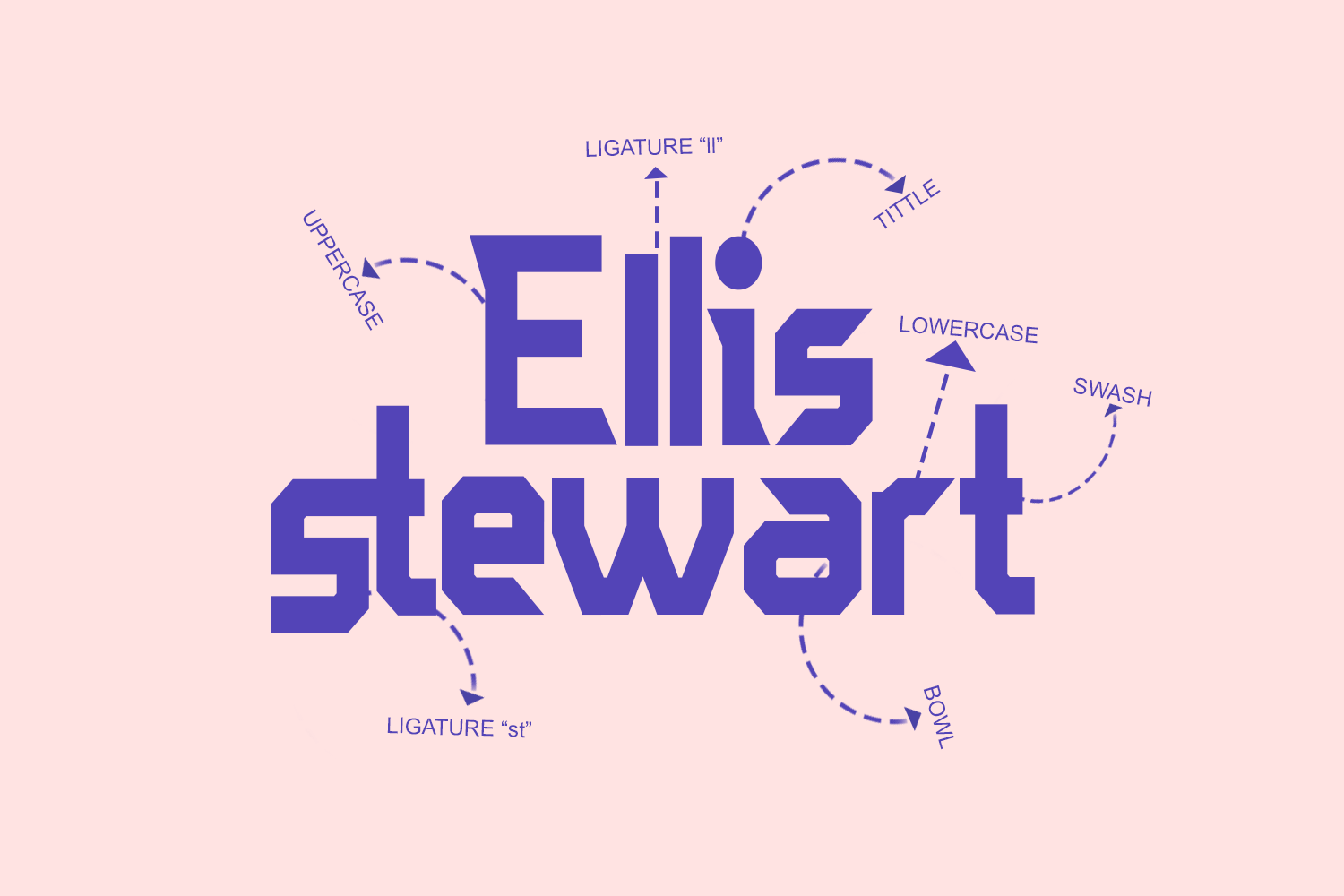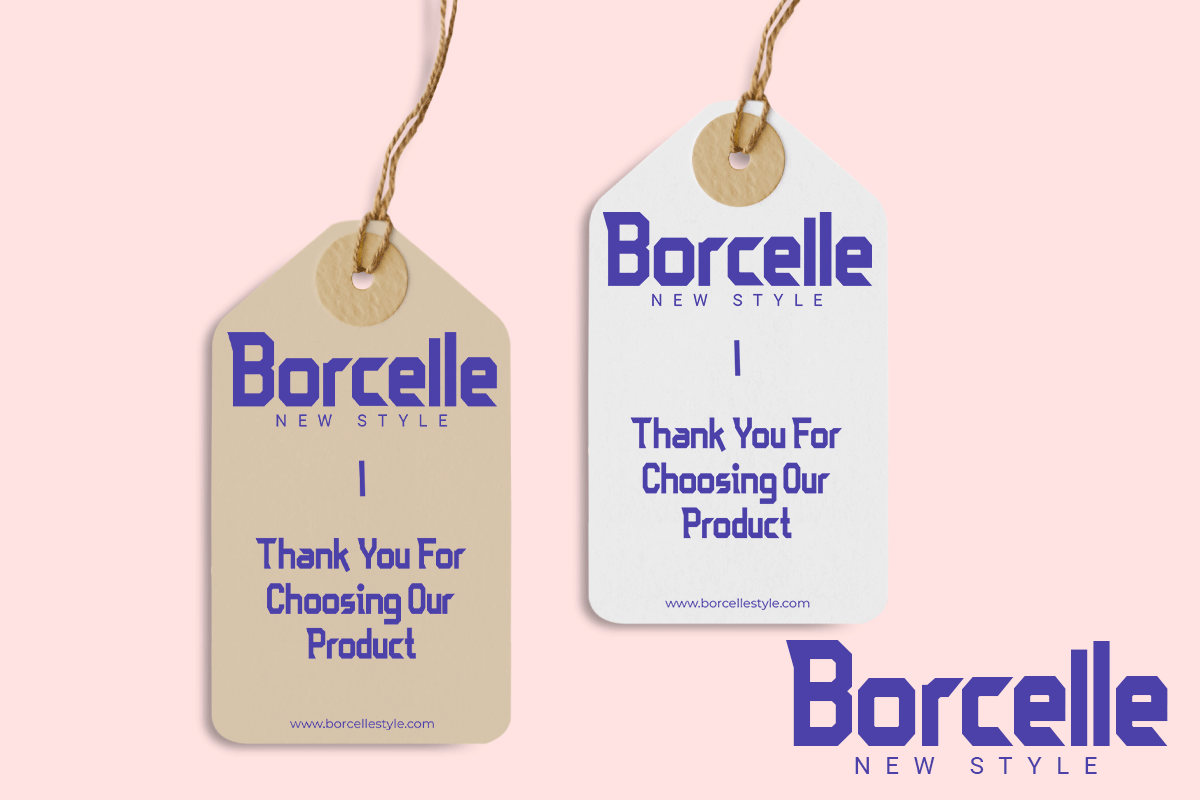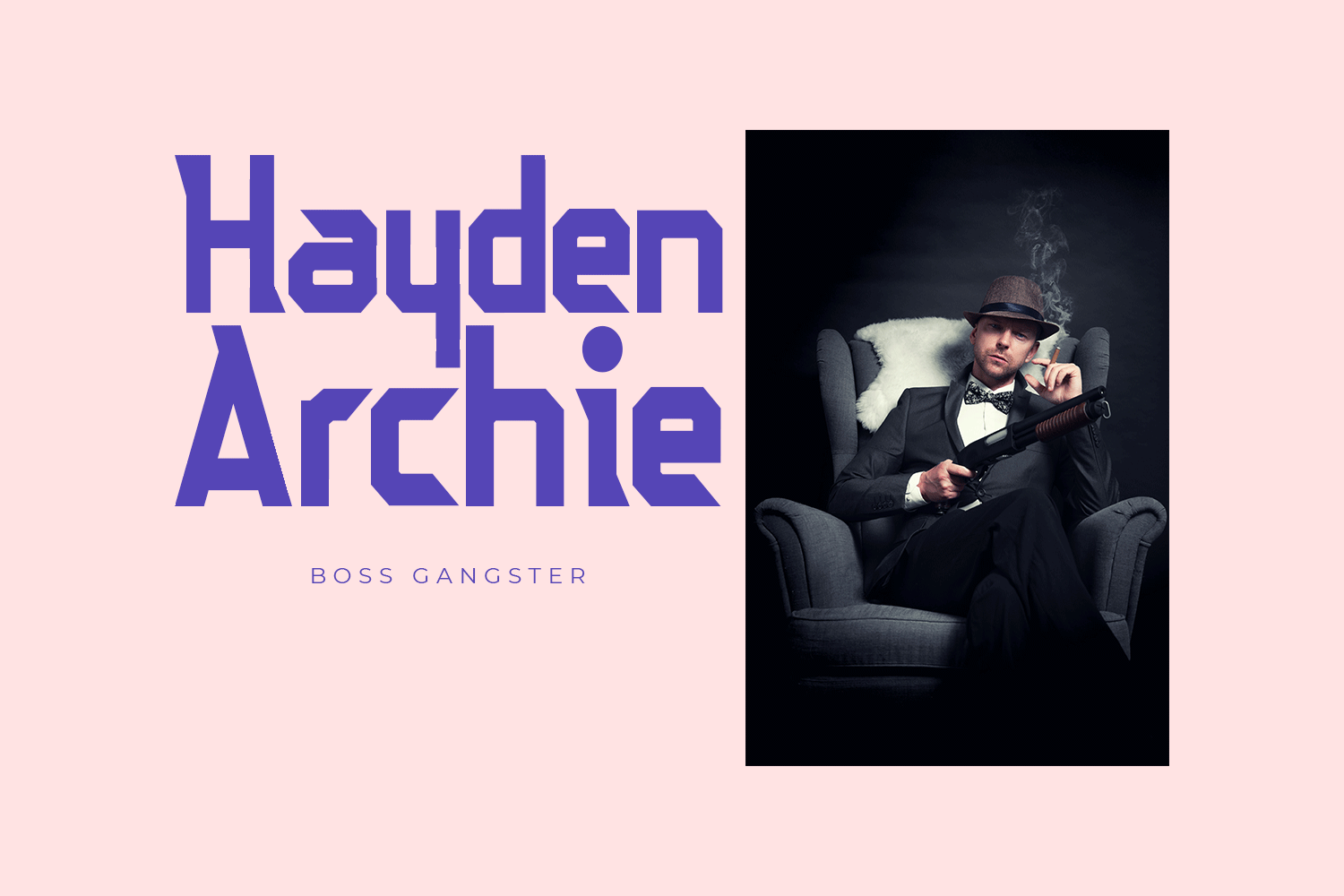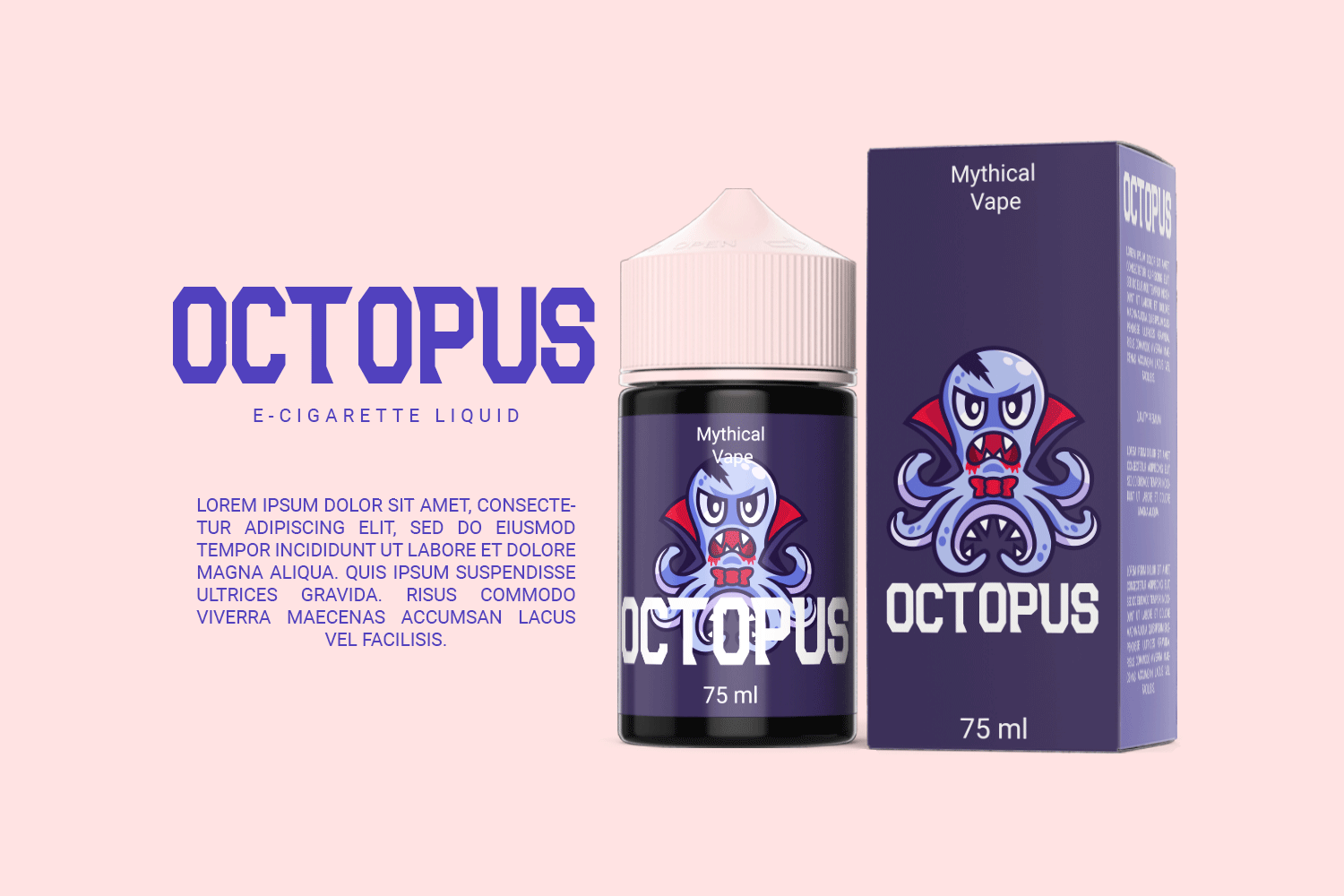
Ardon Free Font
Discover Ardon Free Font – a daring and genuine display font. Perfect for various branding projects, including logos, t-shirt printing, sporting designs, and more. Its boldness and authenticity make it a standout choice in diverse contexts, guaranteeing exceptional visual appeal. Embrace the versatility of Ardon to elevate your creative ventures with a touch of uniqueness and flair. This free typeface was designed by a talented Display Studio. If you like it don’t forget to check out the full version.